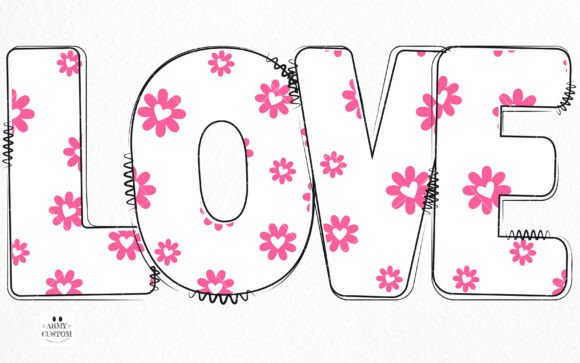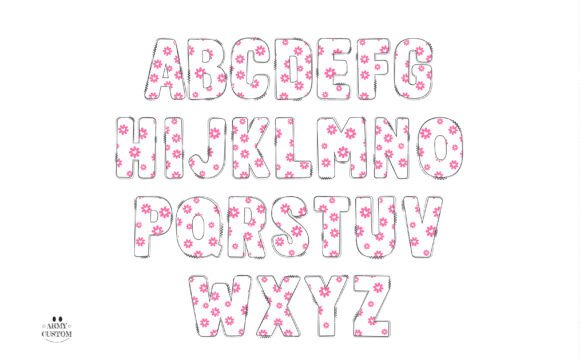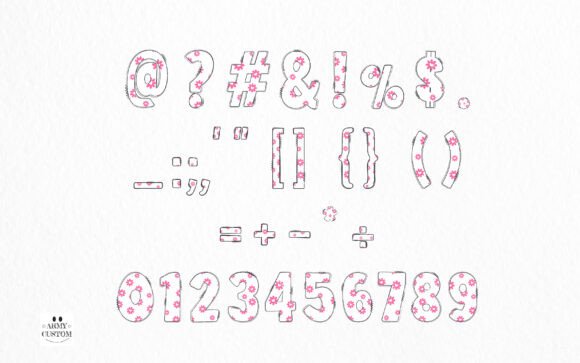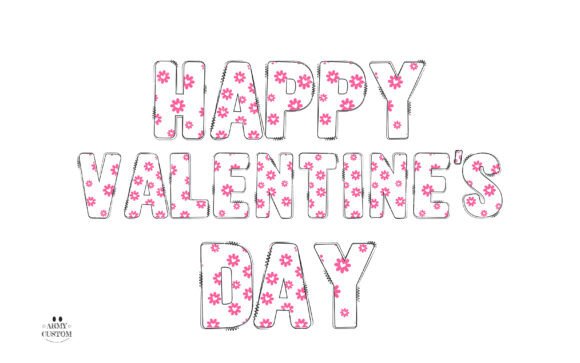
Introduction to Love Valentine’s Flower Font
Do you remember the first time you stumbled upon a perfect font to express your love and affection? Perhaps it was a creative project that required the perfect touch, a heartfelt message that needed a delicate flourish, or a design that needed a special something to make it stand out. Whatever the moment was, I’m sure it left an indelible mark on your heart.
For designers, finding the right font can be a game-changer. It’s the difference between a design that’s just okay and one that’s truly exceptional. And that’s exactly why we’re excited to introduce you to the enchanting “Love Valentine’s Flower Font” – a high-quality, free download that’s sure to become your new go-to for all things love and romance.
This beautifully crafted font features intricately doodled heart patterns that will add a touch of whimsy and romance to any design. With its transparent background, it’s perfect for creative projects that require a delicate look. Whether you’re working on a Valentine’s Day design or simply want to add a little love to your everyday creations, this font is sure to be a valuable addition to your design resource library.
Key Features of Love Valentine’s Flower Font
- High-quality design resource perfect for creative projects, including greeting cards, invitations, and other Valentine’s Day-themed materials.
- Transparent background, making it easy to combine with other design elements and backgrounds.
- Unique, hand-drawn design with intricate details, adding a touch of elegance and sophistication to any project.
Honest Review: Love Valentine’s Flower Font
As a designer, I’m always on the lookout for unique and high-quality design resources to elevate my creative projects. Recently, I had the chance to work with the Love Valentine’s Flower Font, and I must say it’s a lovely addition to any design.
Some things to keep in mind: ⚠️ The font may not be suitable for all types of projects, particularly those requiring a more formal or minimalist aesthetic. ⚠️ The floral design may be distracting in certain contexts, so it’s essential to use it thoughtfully.
Overall, I’m impressed with the Love Valentine’s Flower Font. It’s a great design resource for those looking to add a touch of whimsy and romance to their projects. If used correctly, it can be a beautiful and effective way to convey a message or create a memorable experience.
Here are some use cases for the Love Valentine’s Flower Font:
- Valentine’s Day promotions and advertising
- Floral-themed social media graphics
- Personalized gift tags and cards
How to Use Love Valentine’s Flower Font
Use the Love Valentine’s Flower Font in combination with a transparent background for a more visually appealing design. Experiment with different font sizes, colors, and styles to create a unique look.
The Love Valentine’s Flower Font is ideal for Valentine’s Day-themed designs, wedding invitations, and other romantic projects. You can also use it for free download and customization in various design applications.